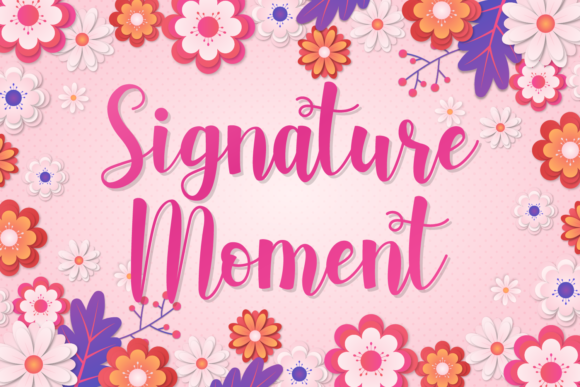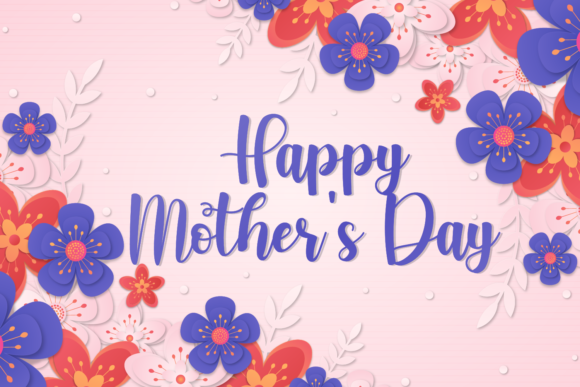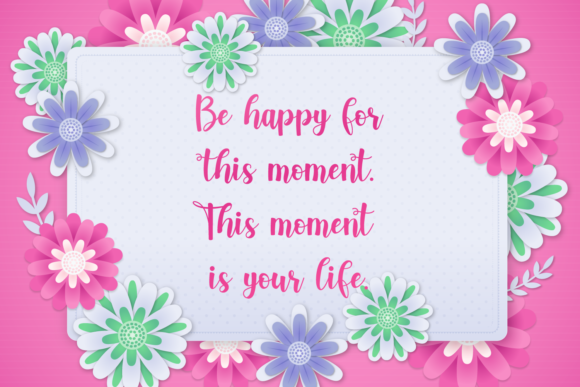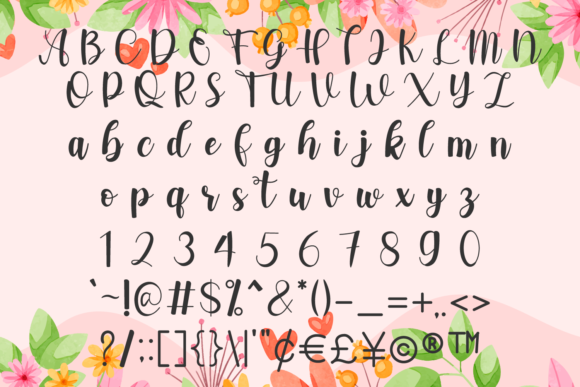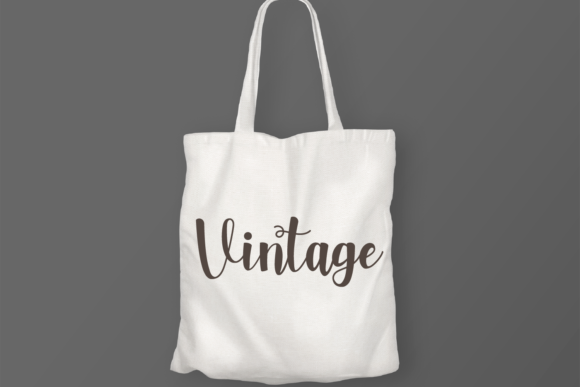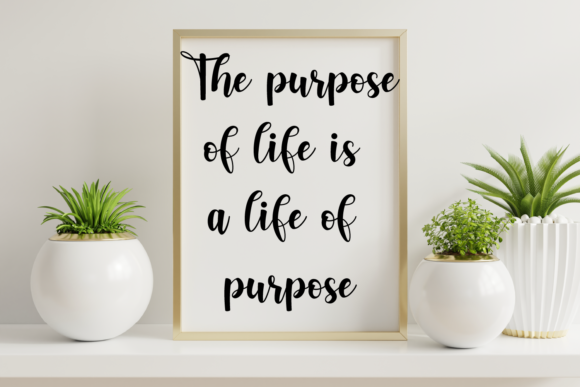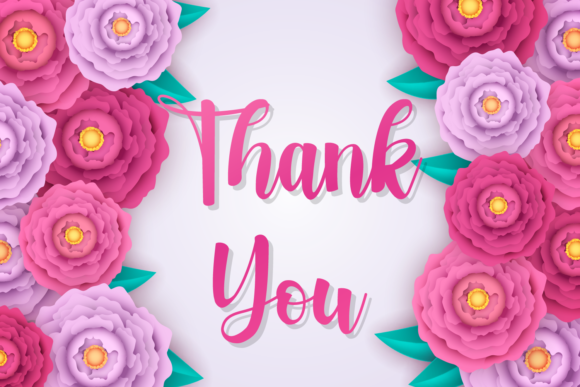
Signature Moment Font
About Signature Moment Font
Signature Moment is a charming and whimsical script font characterized by its sweet, flowing, and thin strokes. The characters dance gracefully along the baseline, infusing a sense of elegance and luxury into any design project it graces. This font is crafted to add a delightful and sophisticated touch to your creative endeavors.
The thin and flowing nature of Signature Moment makes it particularly well-suited for projects where a touch of grace and refinement is desired. Its whimsical script style lends itself beautifully to various design applications, allowing it to enhance a wide range of projects.
Whether used in branding, invitations, packaging, posters, or any other design project, Signature Moment brings a sense of charm and sophistication. The font’s delicate strokes contribute to a luxurious spark that elevates the overall aesthetic, making it an ideal choice for those seeking a font that exudes a graceful and whimsical vibe.
The dancing characters along the baseline add a playful and dynamic element to Signature Moment, creating visual interest and ensuring that it stands out in your designs. This font is not just a typographic choice; it’s a signature style that adds personality and flair to your creative work.
In summary, Signature Moment is a font designed to create a sweet and luxurious ambiance. Its thin, flowing script and dancing characters make it a versatile choice for designers aiming to infuse their projects with a touch of sophistication and whimsy, enhancing the overall visual appeal of their creations.